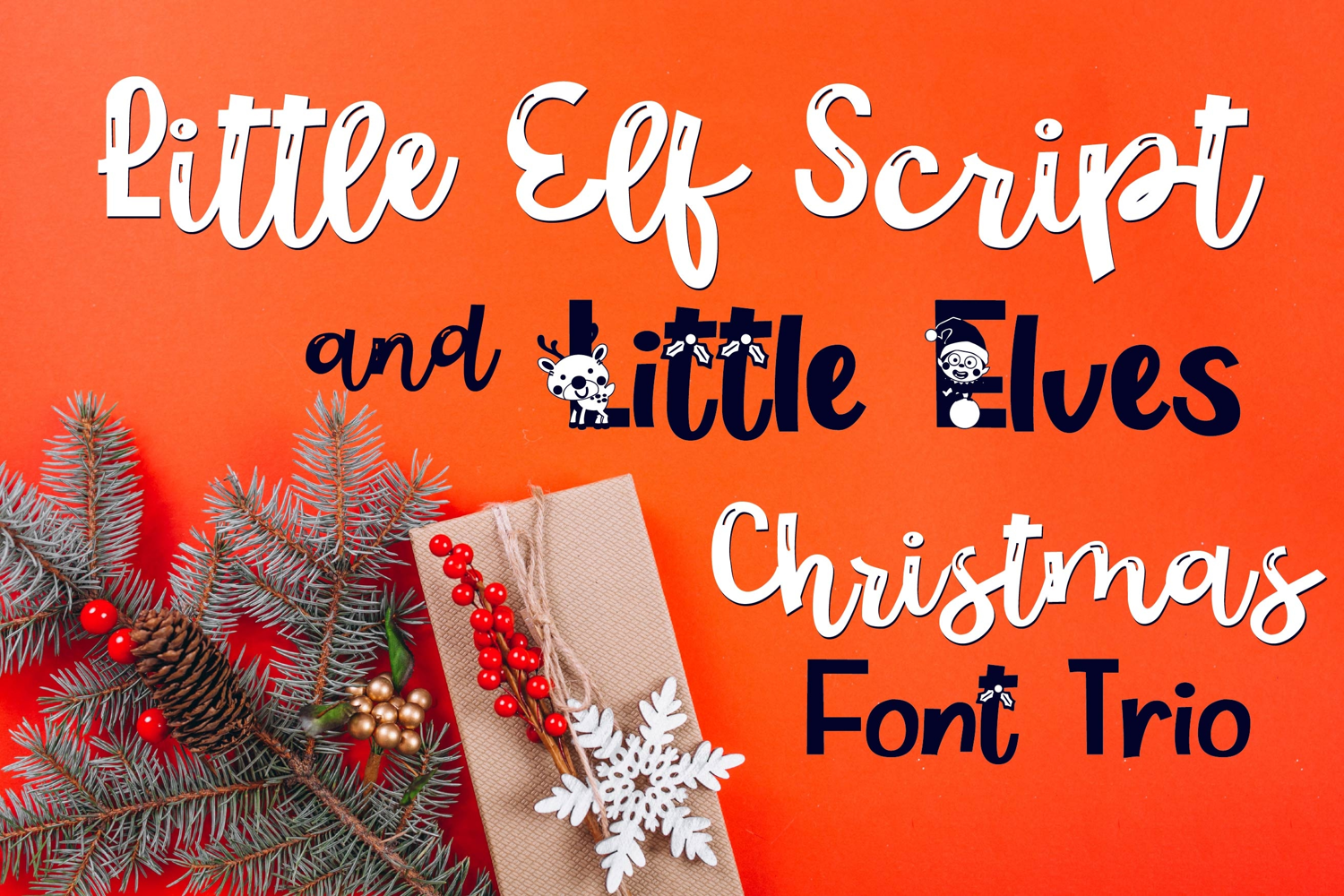
Little Elf Script Font Trio
This hand-crafted font trio combines a hand-crafted font with whimsical script, an elf wearing sans serif and a plain version of that same font. Bonus tag dingbat font included! With all family members combined of the 3 fonts, you get 78 fonts all together!
Hand-crafted fonts can be either formal or informal, and they can be used for a variety of purposes. Some of the characteristics of handwritten fonts include: The letters are not perfectly uniform in size or shape. There may be slight variations in the spacing between letters and words. The font may have a "wiggly" or "squiggly" appearance. The font may be difficult to read at small sizes. Handwritten fonts can be a great way to add a casual touch to your designs. They can also be used to create a sense of nostalgia or whimsy. However, it is important to choose a handwritten font that is appropriate for the project you are working on. A formal handwritten font may not be appropriate for a casual invitation, while an informal handwritten font may not be appropriate for a corporate document.
• The letters are not perfectly uniform in size or shape.
• There may be slight variations in the spacing between letters and words.
• The font may have a "wiggly" or "squiggly" appearance.
• The font may be difficult to read at small sizes.